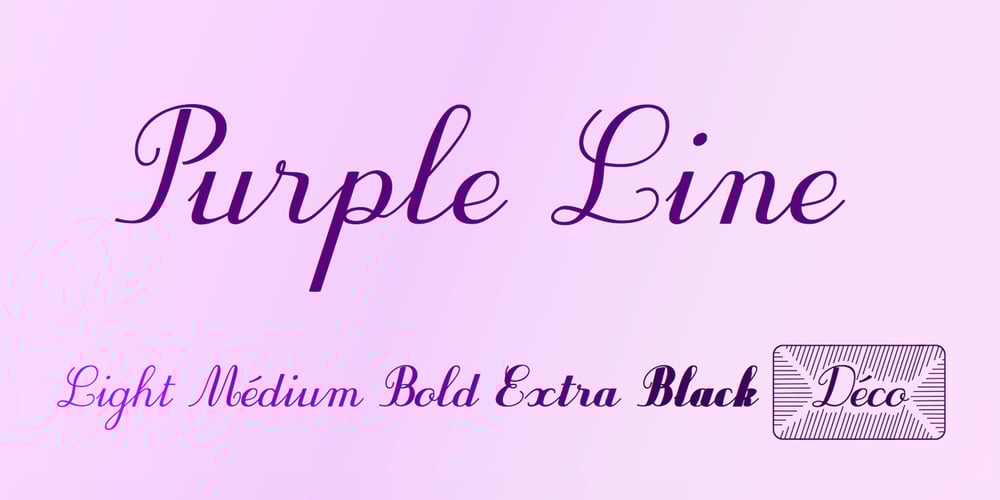
Purple Line Font Family was designed by Jean Boyault and published by JBFoundry. Purple Line contains 6 styles and family package options. Purple Line is a simple script in five weights.